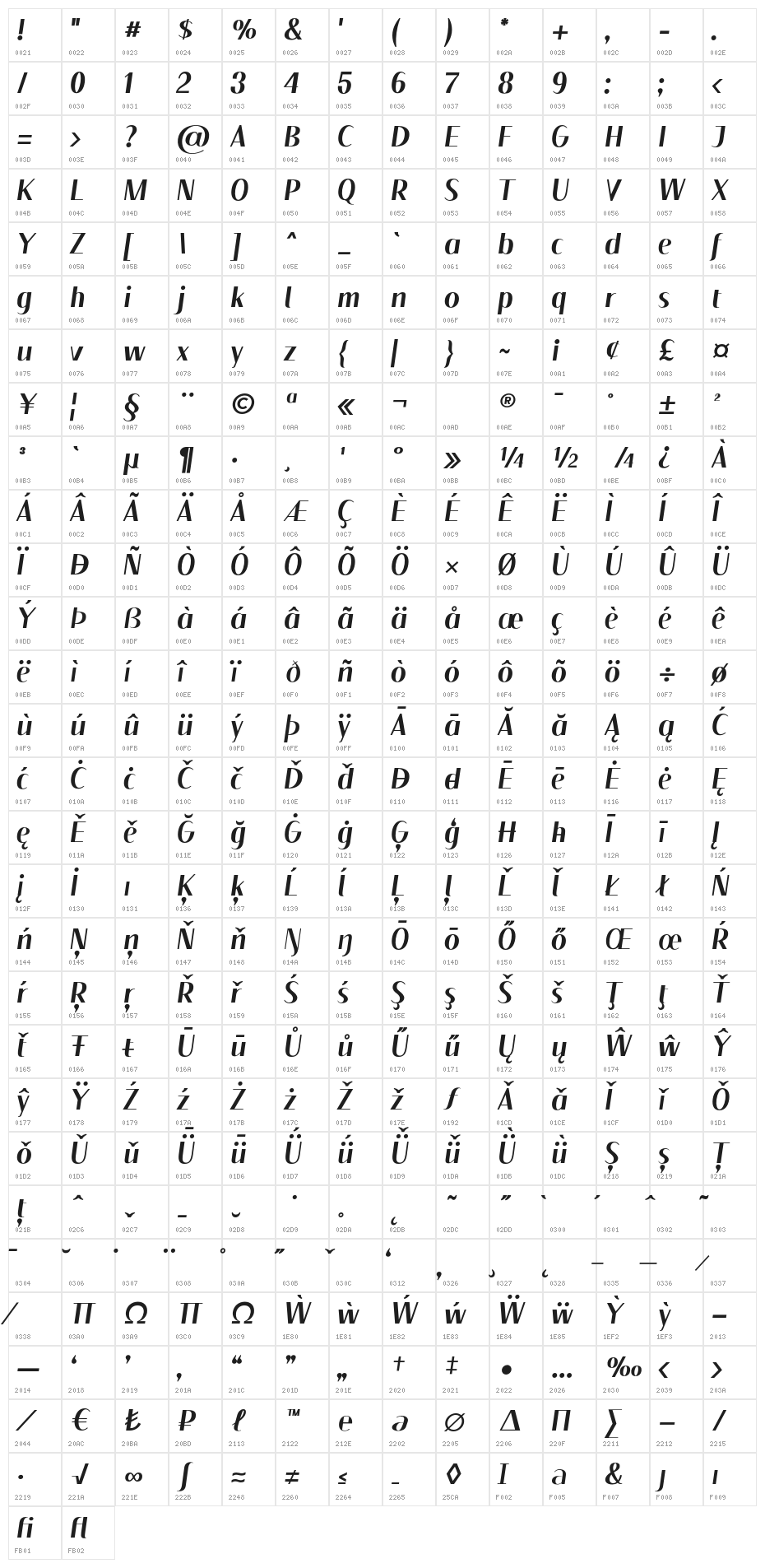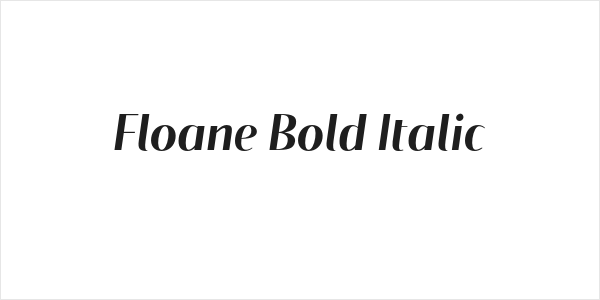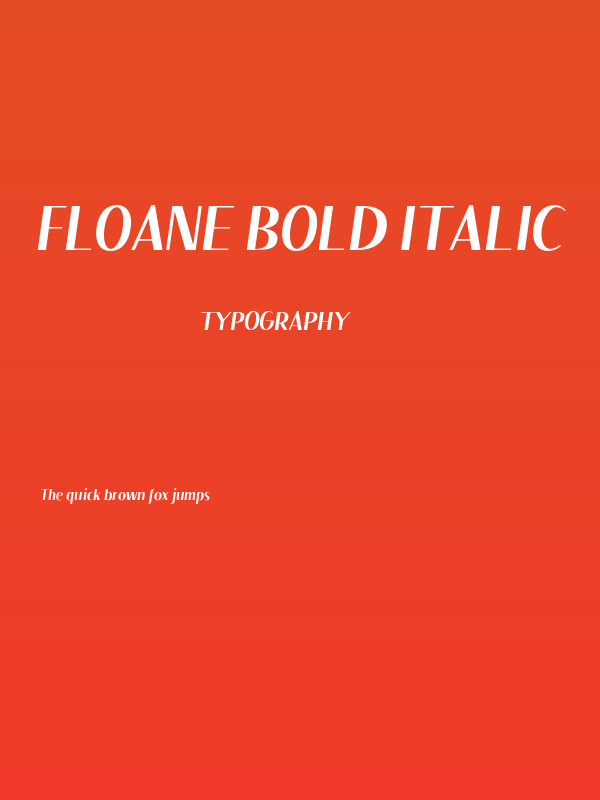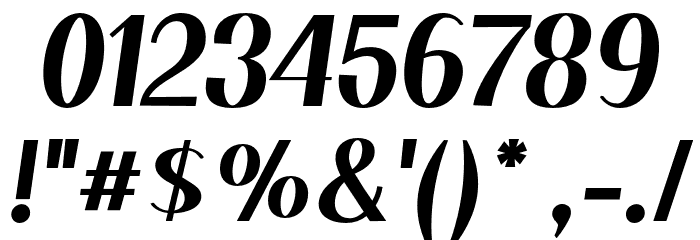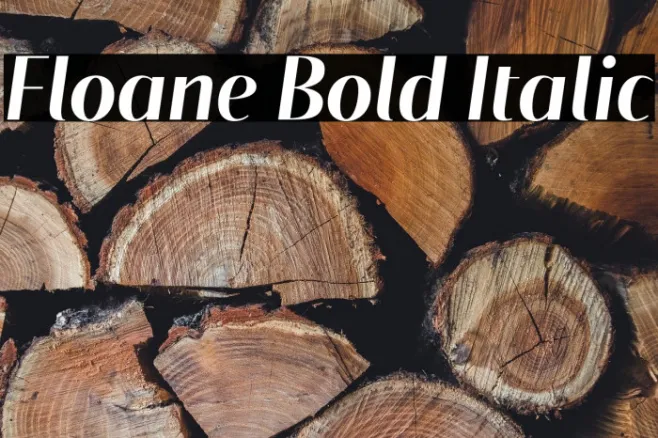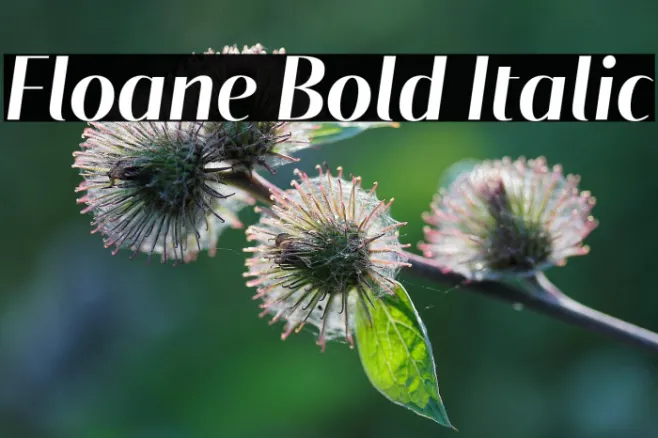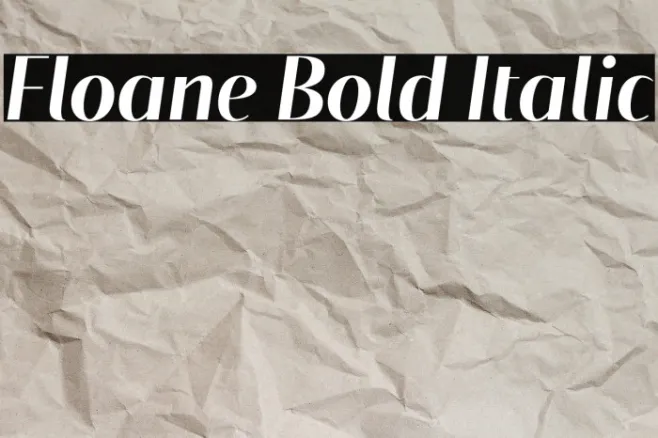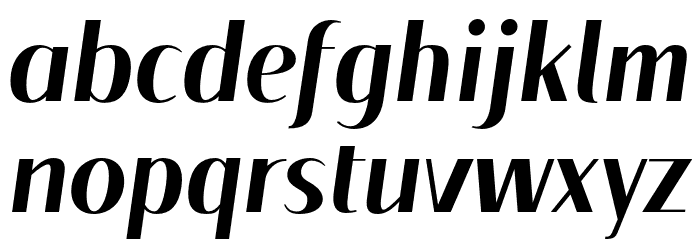
Floane Bold Italic Font
Floane Bold Italic Description
This font features a bold and italicized style, offering a dynamic and elegant appearance. The characters are slightly slanted, enhancing the sense of movement and sophistication. The strokes are thick, providing a strong presence, while the serifs add a touch of classic elegance. The uppercase letters are tall and commanding, while the lowercase letters maintain a consistent flow. The numerals are clear and bold, ensuring readability. Special characters are well-defined, maintaining the overall aesthetic of the font.
| Proposed Projects | Ideal for branding, editorial design, and luxury product packaging. |